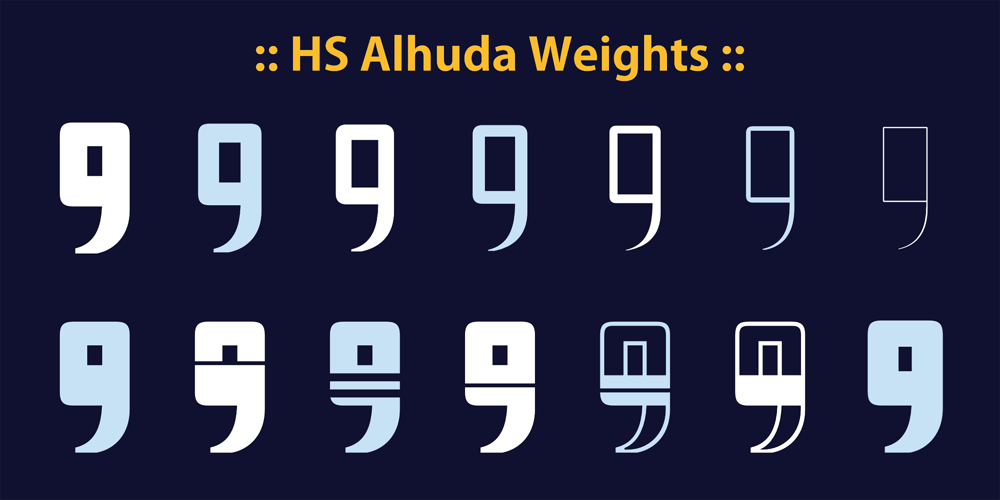
HS Alhuda Font Family was designed by Hasan Abu Afash and published by Hiba Studio. HS Alhuda contains 14 styles and family package options. HS Alhuda is a display typeface. It can be used for titles and graphic projects, which support Arabic, Persian Urdu and Kurdish. It has been created based on modern kufi style. It enjoys flexibility between sharp and curved lines in the structure of characters. This supports with a beautiful appearance and wonderful geometric structure. The sharp endings in the bottom of character also give an aesthetic addition to the character. (8) Weights has been created for this typeface between the heariline weight and heavy weight. Besides, those six additional weights which can be used in headline, has baseline parts are more thicker than the vertical parts. One has a regular form and the others has a stencil form in the middle using various styles. This typeface with its diversity of (14) weights is intended to be an attempt for a good addition to Arabic typography.